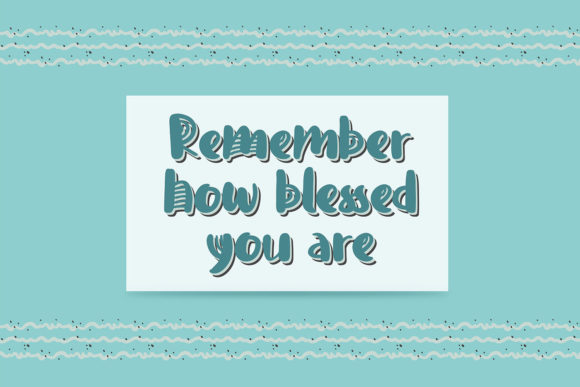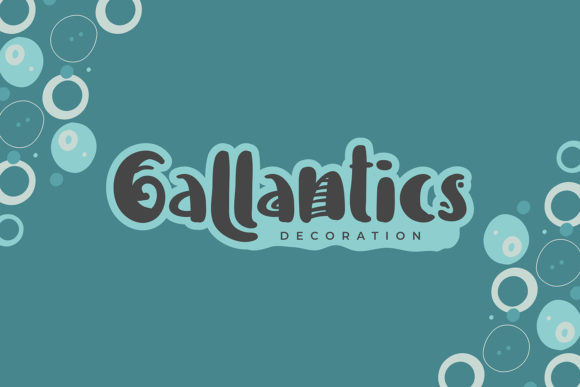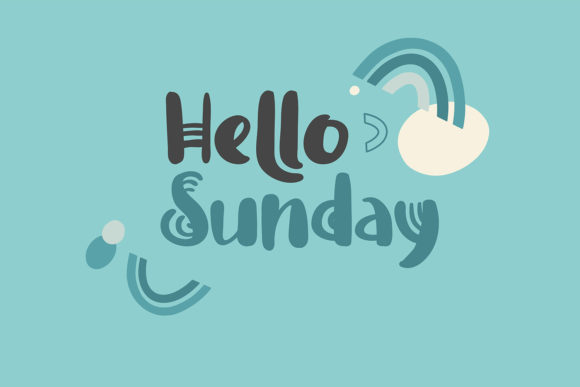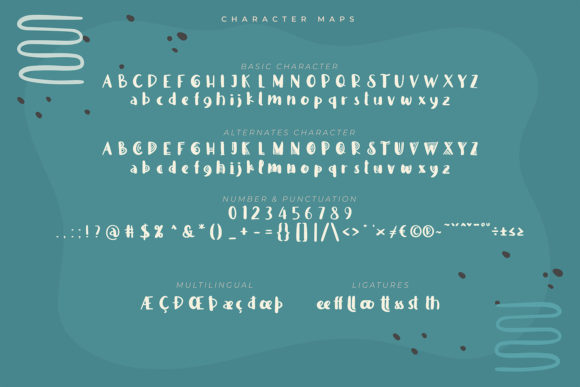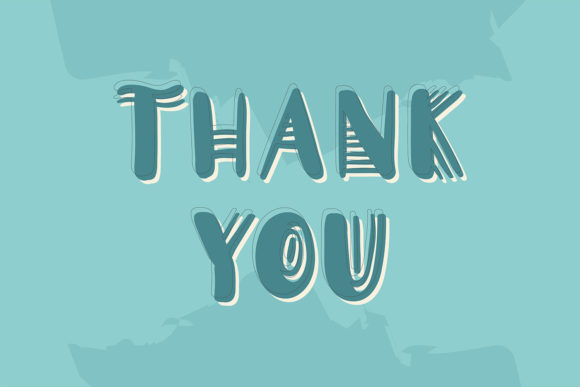
Introducing Carissa Font: The Friendly, Round Lettered Display Font for Creative Projects
Are you a designer, crafter, or DIY enthusiast looking for a unique and versatile font to elevate your creative projects? Look no further than Carissa Font! This friendly, round lettered display font is perfect for a wide range of applications, from Instagram graphics and social media posts to calligraphy scripts and handmade crafts.
What Makes Carissa Font So Special?
Carissa Font is a one-of-a-kind display font that boasts a distinctive, rounded lettering style that’s both playful and elegant. Its unique charm makes it an excellent choice for designers and crafters who want to add a personal touch to their work. Whether you’re creating visual content for social media, crafting handmade cards and invitations, or designing signs and banners, Carissa Font is sure to turn your creative ideas into true works of art.
Key Features of Carissa Font
- Round Lettered Design: Carissa Font features a beautiful, rounded lettering style that’s perfect for creating friendly and approachable visual content.
- Unique Display Font: With its distinctive character and elegant flair, Carissa Font is an excellent choice for headlines, titles, and other display text.
- Versatile and Flexible: Carissa Font can be used for a wide range of creative projects, from digital graphics and social media posts to handmade crafts and DIY projects.
- Easy to Read and Write: Despite its decorative nature, Carissa Font is surprisingly easy to read and write, making it perfect for creating visual content that’s both beautiful and functional.
Using Carissa Font for Instagram and Social Media
In today’s digital age, having a strong visual presence on social media is crucial for designers, crafters, and DIY enthusiasts. Carissa Font is an excellent choice for creating engaging and eye-catching graphics for Instagram and other social media platforms. Its friendly, approachable design makes it perfect for:
- Instagram Posts and Stories: Use Carissa Font to create beautiful, eye-catching graphics that showcase your products, services, or creative projects.
- Social Media Headers and Banners: Add a touch of personality to your social media profiles with custom headers and banners created using Carissa Font.
- Influencer and Blogger Graphics: Collaborate with influencers and bloggers to create sponsored content that stands out from the crowd with Carissa Font.
Using Carissa Font for Calligraphy and DIY Projects
Carissa Font is not just limited to digital applications – it’s also an excellent choice for handmade crafts and DIY projects. Its elegant, cursive design makes it perfect for:
- Handmade Cards and Invitations: Add a touch of sophistication to your handmade cards and invitations with Carissa Font.
- DIY Signs and Banners: Create beautiful, eye-catching signs and banners for parties, events, and special occasions using Carissa Font.
- Calligraphy and Lettering Projects: Use Carissa Font as a starting point for your calligraphy and lettering projects, and add your own personal touch with decorative flourishes and embellishments.
In conclusion, Carissa Font is a versatile and unique display font that’s perfect for designers, crafters, and DIY enthusiasts. Its friendly, round lettered design makes it an excellent choice for a wide range of creative projects, from Instagram graphics and social media posts to calligraphy scripts and handmade crafts. With Carissa Font, you can turn any creative idea into a true piece of art!